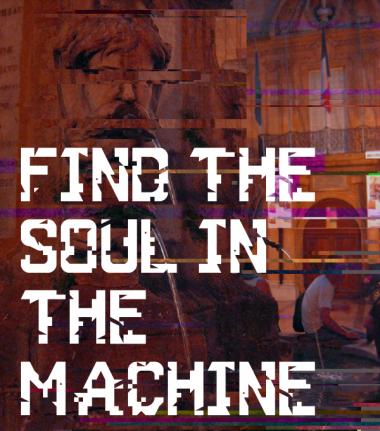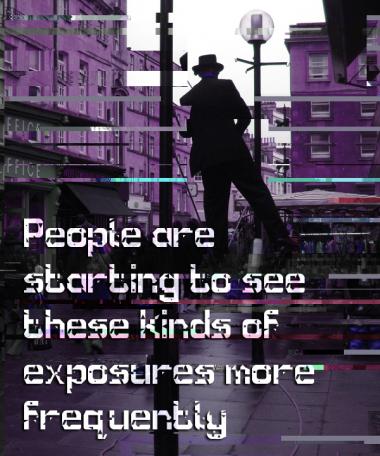
Glitch
An experimental font that gives the appearance of digital glitching. I might do more with this in the future.
Great concept. Distorted fonts aren't my cup of tea, precisely, but this is well done and the sampes are breathtaking, so my 10/10 goes to you!
A really good first FontStruction :) 10/10
I like this kind of fonts. My 10 2U!